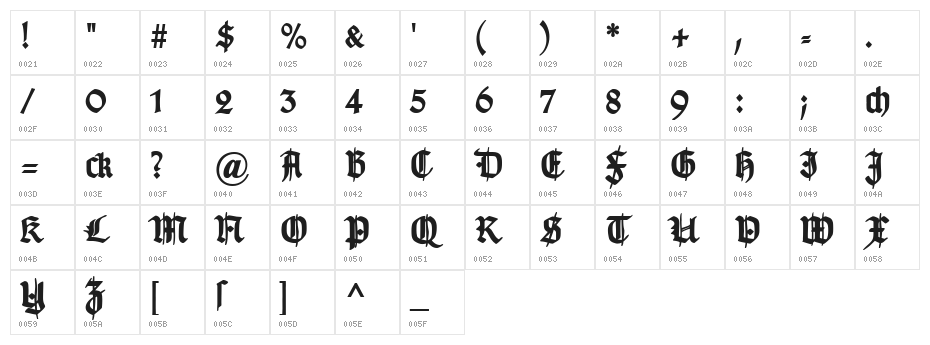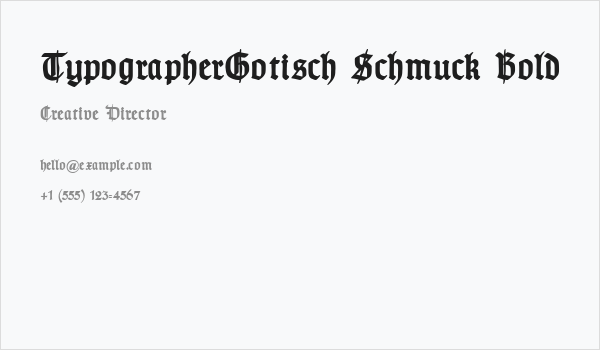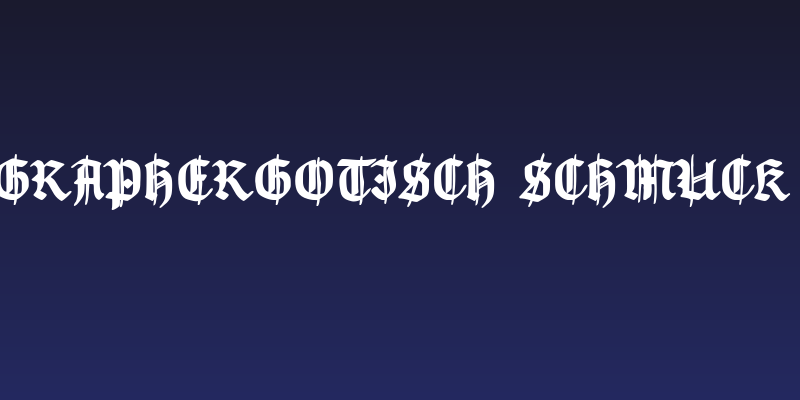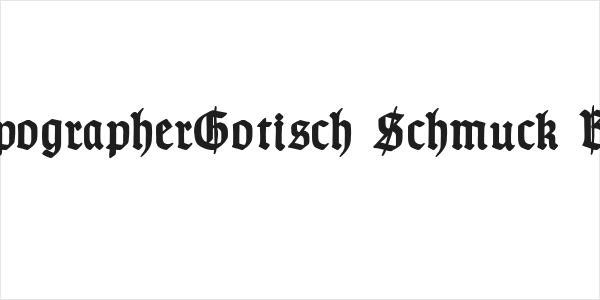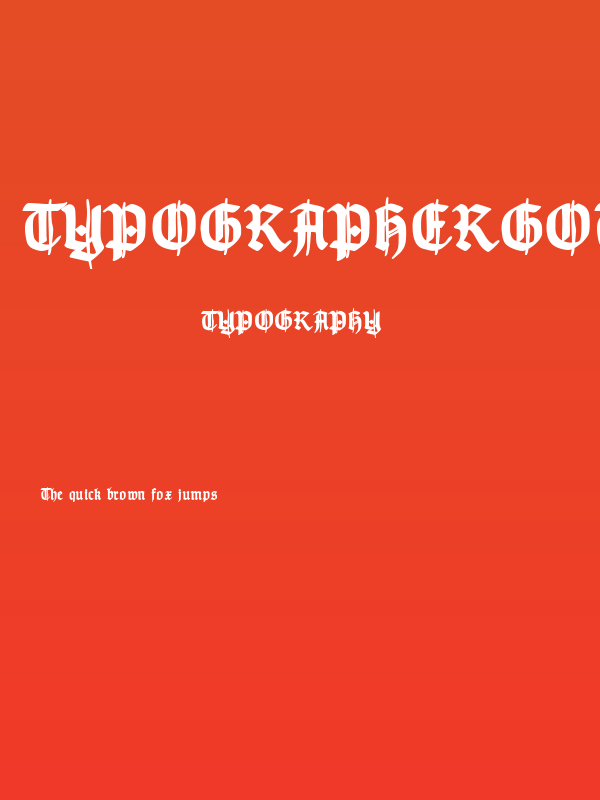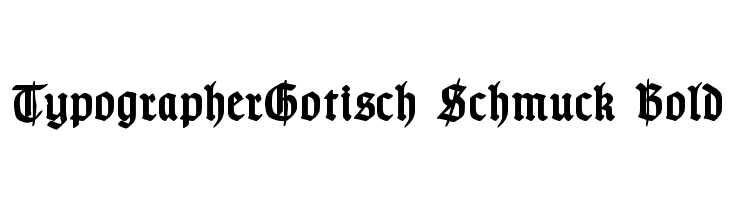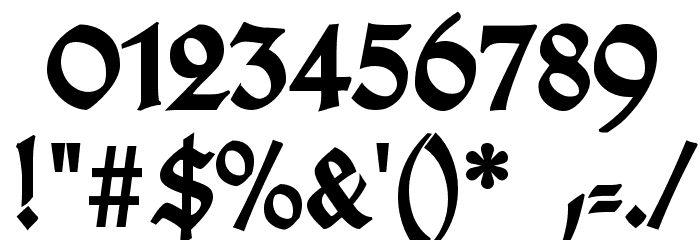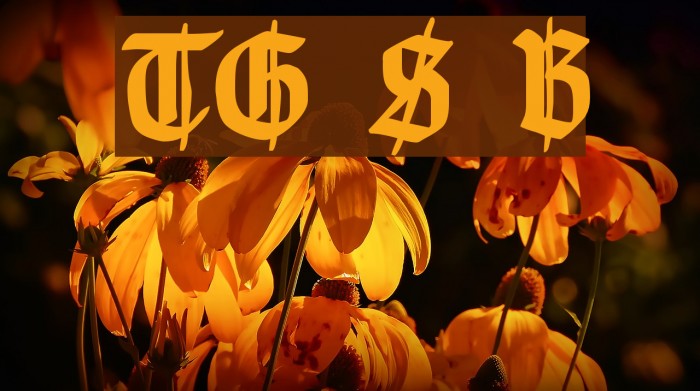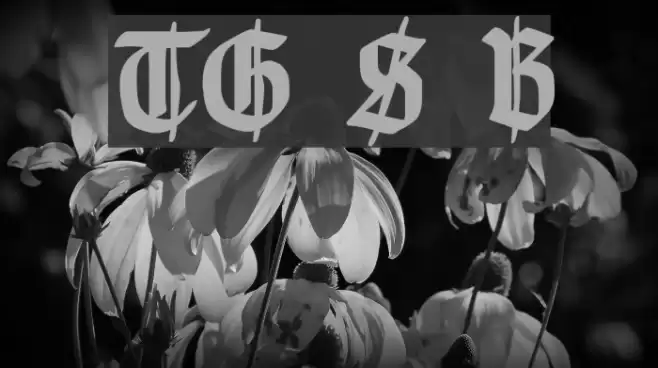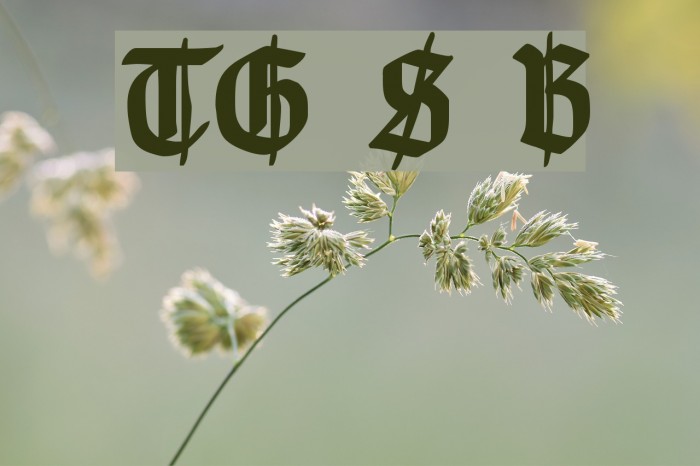
TypographerGotisch Schmuck Bold Font
TypographerGotisch Schmuck Bold Description
This font exhibits a traditional Blackletter style, characterized by its intricate and ornate design. The letters are bold and feature sharp, angular lines with decorative elements that give it a historic and gothic appearance. The uppercase letters are particularly elaborate, with pointed serifs and flourishes that enhance their dramatic look. The lowercase letters maintain the same level of detail, ensuring consistency throughout the typeface. The numerals and special characters are equally stylized, fitting seamlessly with the overall aesthetic. This font is perfect for projects that require a touch of medieval or vintage flair.
| Overall Style | Vintage |
| Use Case | Headlines, Logos, Decorative text |
| Proposed Projects | Ideal for historical documents, vintage posters, gothic-themed designs, and decorative headings. |